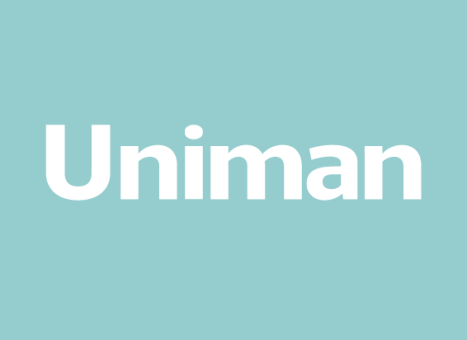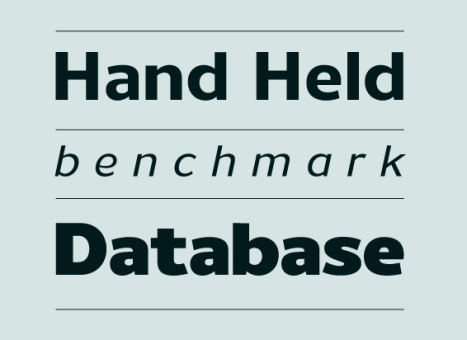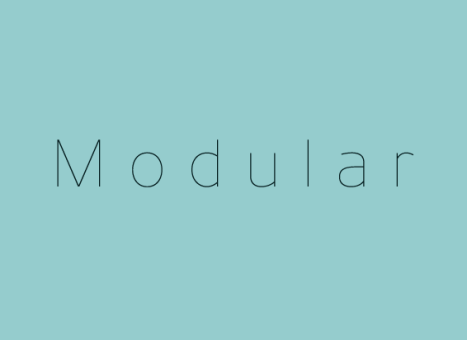
Uniman
A clear and simple sans serif typeface. Straight lines are combined with precision curves to form a functional and versatile font best suited for a wide range of applications. Developed to meet the needs of the professional user, details include 9 weights with italics, 540 characters, 5 variations of numerals, small caps, stylistic alternatives, manually edited kerning and Opentype features.